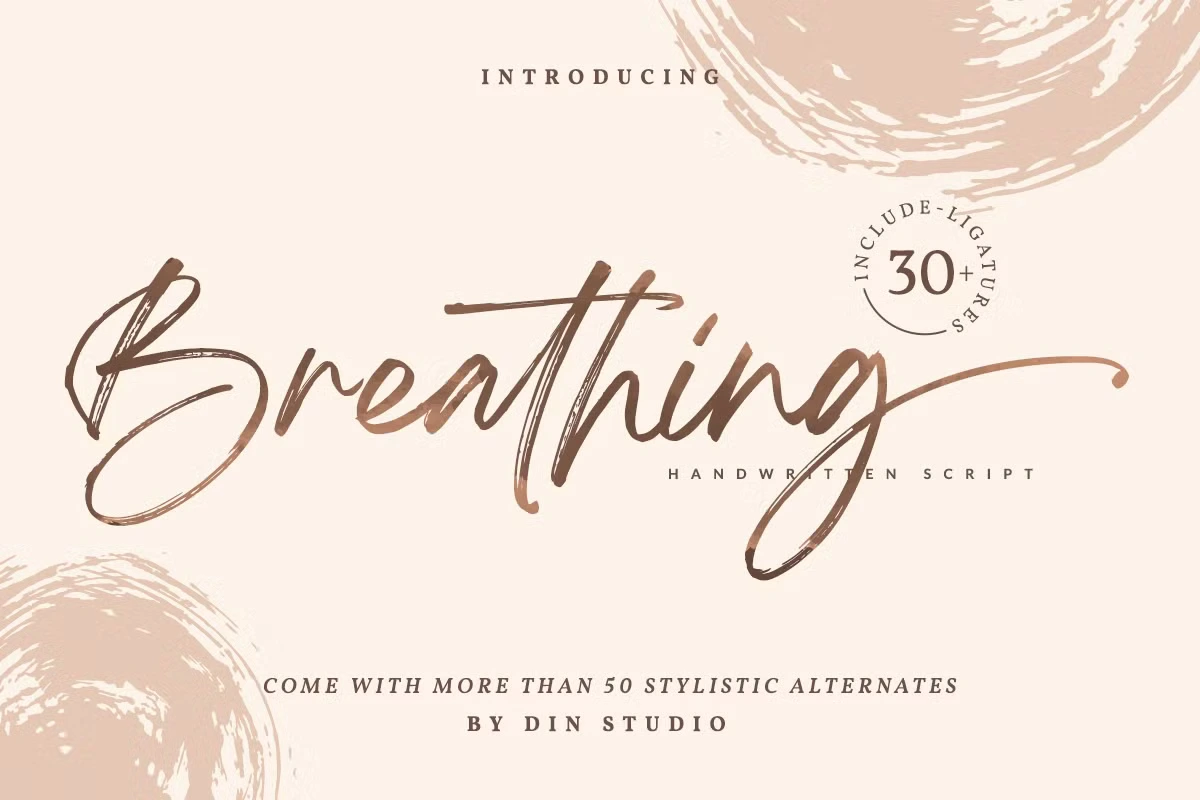
Breathing Brush Font is a lively and fun display font created with a brush pen. Its natural strokes give it a unique and artistic feel, making it perfect for adding a personal touch to any design. The font’s handcrafted style brings warmth and character, making it a great choice for creative projects. Each letter is carefully designed to maintain a beautiful and expressive flow.
This stylish brush font is ideal for branding and professional projects. Whether you’re designing a logo, product packaging, or social media graphics, Breathing Brush Font enhances the visual appeal with its distinctive charm. It also works well for fashion-related materials, stationery, magazines, and invitations, adding an elegant yet relaxed look.
From greeting cards and book covers to t-shirts and billboards, this versatile font adapts to various design needs. Its artistic strokes make it stand out in marketing materials, business cards, flyers, and more. Breathing Brush Font is the perfect choice for anyone looking to create eye-catching and memorable designs with a touch of creativity.